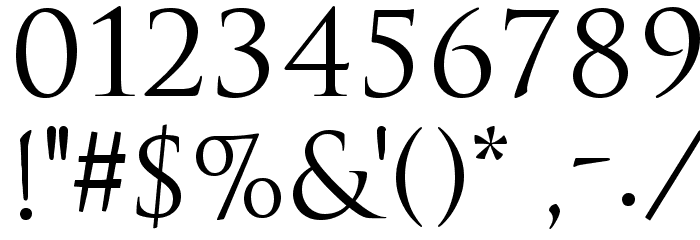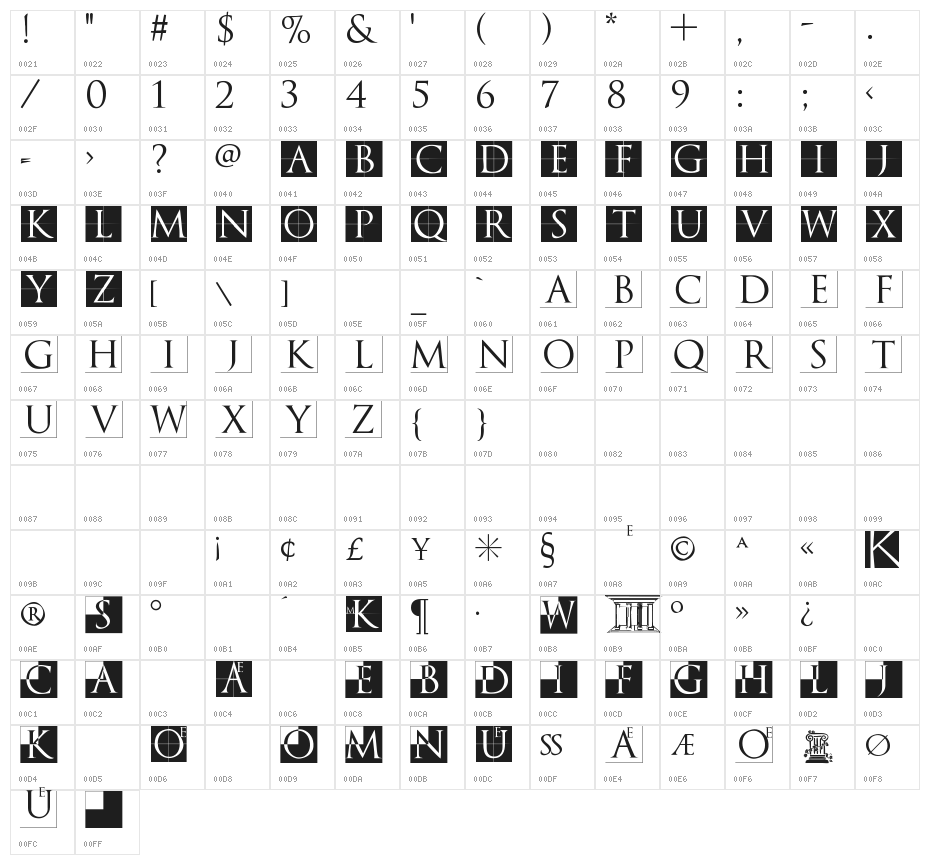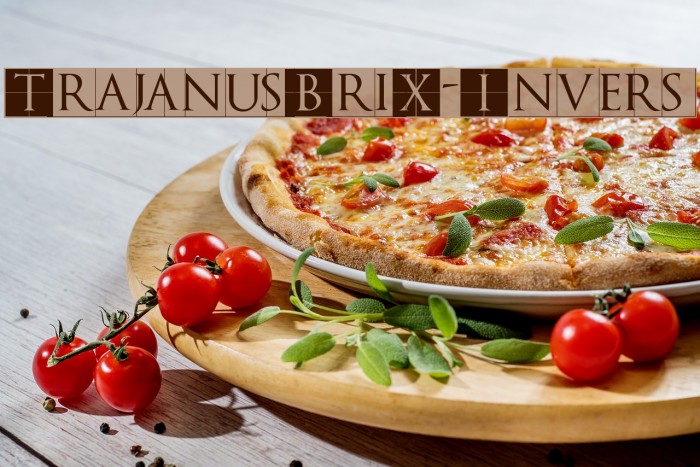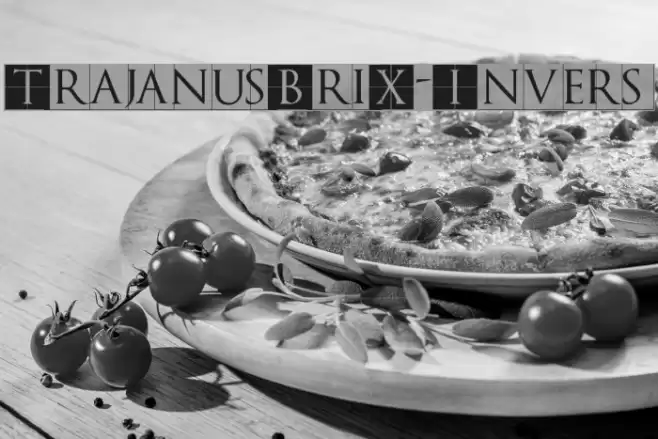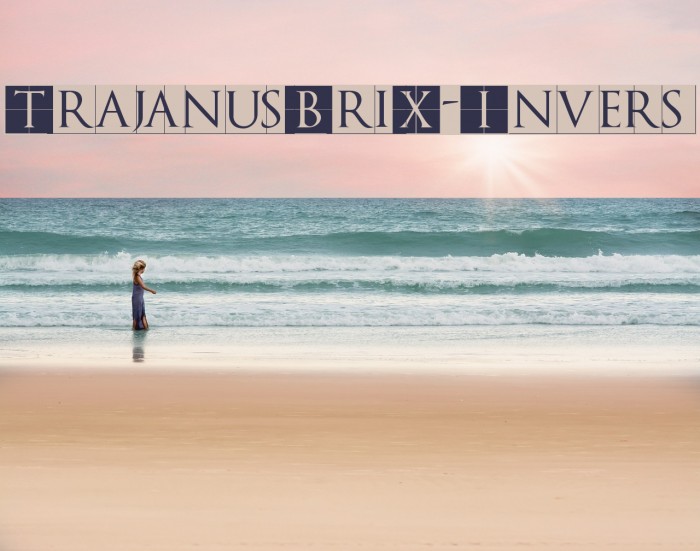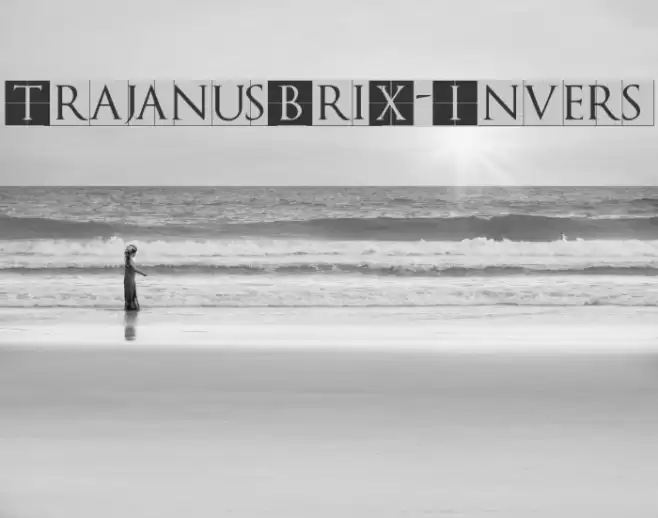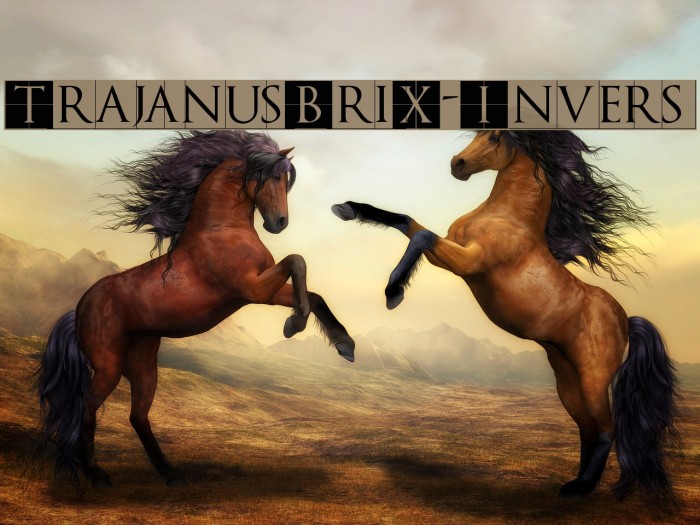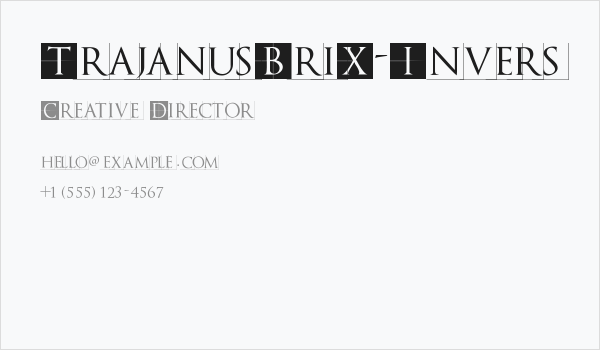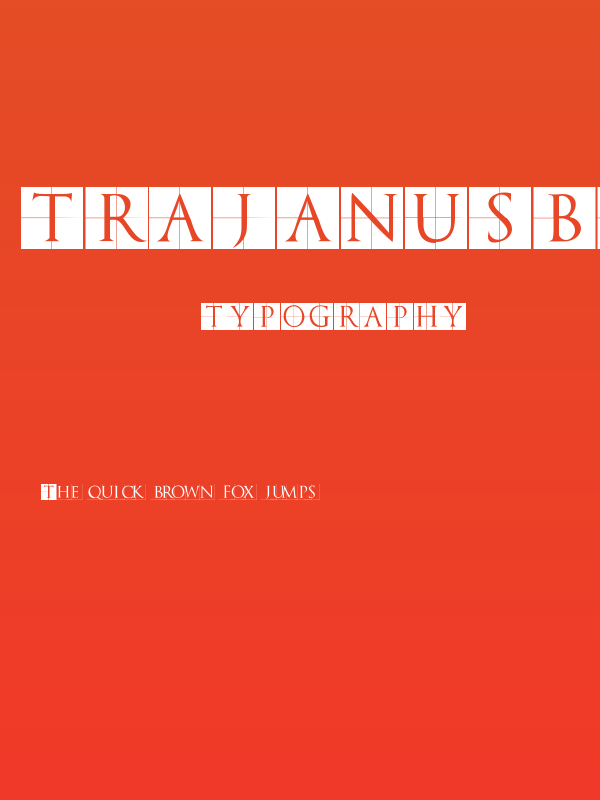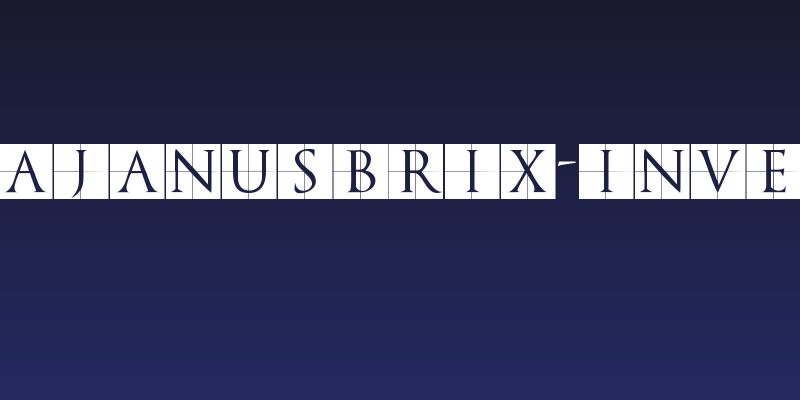
TrajanusBriX-Invers Font
TrajanusBriX-Invers Description
This font features a classic and elegant design with a strong emphasis on vertical lines and sharp serifs. The uppercase letters are tall and stately, with a refined and sophisticated appearance. The numerals are consistent with the overall style, maintaining the same level of elegance and clarity. The special characters are well-integrated, matching the font's aesthetic with precision. The overall look is reminiscent of ancient Roman inscriptions, offering a timeless and authoritative feel.
| Proposed Projects | Ideal for formal invitations, book covers, historical documentaries, and luxury branding. |